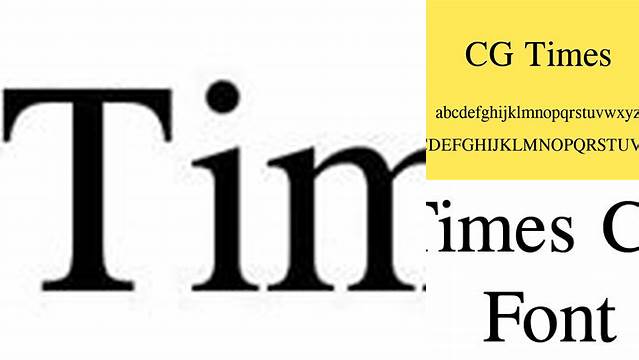
Unveiling the CG Times Font: A Typographical Gem
The world of typography is vast and ever-evolving, with countless fonts available to express ideas visually. Among these, the CG Times font stands out as a versatile and widely recognized typeface. Often associated with a classic, academic, or professional aesthetic, CG Times offers a clean, readable, and adaptable solution for a wide range of design projects. Whether you're crafting a report, designing a website, or laying out a presentation, understanding the nuances of this font and how to access it for free can be incredibly beneficial. This article delves deep into the CG Times font, exploring its origins, characteristics, and most importantly, providing a comprehensive guide on how you can download it for free, ensuring your design endeavors have the perfect typographic foundation. We’ll cover everything from where to find legitimate free downloads to tips on integrating it seamlessly into your workflow, guys. So, let's get started on unlocking the potential of this fantastic font!
Exploring the Distinctive Characteristics of CG Times Font
When you encounter the CG Times font, what immediately strikes you is its inherent sense of clarity and structure. This isn't just another font; it's a carefully crafted tool designed for maximum readability and a timeless appeal. Its serifs, those small decorative strokes at the ends of letterforms, are subtle yet distinct, guiding the eye smoothly across the text. This characteristic makes CG Times particularly well-suited for extended reading, be it in books, articles, or long-form web content. The x-height – the height of lowercase letters like 'x' – is generous, further enhancing legibility, especially at smaller sizes. Think about trying to read a tiny font on your phone screen; a good x-height makes a world of difference, and CG Times delivers on this front. Moreover, the letterforms themselves are well-balanced, with a pleasing contrast between thick and thin strokes, lending a sophisticated and professional air. It’s this attention to detail in its design that has cemented CG Times as a go-to choice for academic papers, business documents, and any project demanding a serious yet approachable tone. We’re talking about a font that doesn't just convey information; it enhances the reader's experience by providing a comfortable and visually pleasing encounter with the text. Its versatility is truly remarkable, guys, as it can transition seamlessly from formal reports to more creative, albeit still polished, digital designs.
Why CG Times Font is a Popular Choice for Designers
There are numerous reasons why the CG Times font has earned its stripes as a favorite among designers, students, and professionals alike. Its enduring popularity isn't accidental; it stems from a potent combination of aesthetic appeal, functional excellence, and widespread availability. For starters, its classic serif design evokes a sense of tradition and authority, making it an ideal candidate for formal documents, academic papers, and professional correspondence. When you need to convey credibility and trustworthiness, CG Times speaks volumes without shouting. Beyond its formal applications, guys, the font's clean lines and excellent readability also lend themselves to digital platforms. Websites, blogs, and user interfaces benefit from its clear presentation, ensuring that content is accessible and engaging across various devices and screen sizes. The subtle serifs help break up text, preventing eye fatigue during long reading sessions online, which is a massive plus in today's digital-first world. Furthermore, CG Times is known for its excellent kerning and spacing, the meticulous adjustment of space between individual letter pairs. This attention to detail ensures that words flow harmoniously, creating a polished and professional look that elevates any design. It’s this blend of classic elegance and modern functionality that makes CG Times such a reliable and versatile workhorse in the designer’s toolkit. It’s the kind of font that consistently performs, regardless of the context, making it a smart and efficient choice for a myriad of projects.
Utilizing CG Times Font in Your Design Projects: Tips and Tricks
Now that you have the CG Times font downloaded and installed, let's talk about how to make the most of it in your creative endeavors, guys. Its classic serif structure makes it incredibly versatile. For professional documents like resumes, reports, or business proposals, CG Times shines. Use it for body text to ensure maximum readability, and perhaps pair it with a clean sans-serif font for headings to create a nice contrast. For websites, its legibility at various sizes makes it a strong contender for body copy, especially on content-heavy sites. Consider using it in a slightly bolder weight for subheadings to maintain visual hierarchy. In presentations, CG Times offers a polished and authoritative feel for slides. Don't be afraid to experiment with font weights and styles – if available, italics can add emphasis, and bold can highlight key information. Remember that kerning (the spacing between specific letter pairs) is crucial for serif fonts. While CG Times is generally well-spaced, manually adjusting kerning for headings or critical text can further enhance its professional appearance. Experiment with different sizes; CG Times looks great from small print to larger display text, but always ensure consistency within your project. Guys, the key is understanding where its strengths lie: readability, classic appeal, and a professional demeanor. Whether it's for print or digital, CG Times is a reliable ally in crafting clear and impactful communication.
CG Times Font vs. Other Popular Serif Fonts: A Comparison
When you're deciding on the perfect font for your project, comparing options is always a smart move, and the CG Times font certainly holds its own against other popular serif contenders. Let's consider Times New Roman, its closest relative, which shares many of the same classic characteristics and is likely pre-installed on your system. CG Times often feels slightly more refined or perhaps a bit more 'modern' in its execution, though the differences can be subtle. Compared to Garamond, another beloved serif font, CG Times presents a more robust and less delicate structure. Garamond is known for its historical elegance and graceful curves, often favored for book design, while CG Times leans towards a more utilitarian and highly readable output. Think about Georgia, designed for screen readability; while Georgia is excellent for digital use, CG Times offers a more traditional serif feel that can bridge both print and digital environments effectively. The key differentiator often lies in the intended application. If you need a font that exudes academic gravitas or professional authority, CG Times is a superb choice. If you're aiming for the warmth and historical charm of old-style typefaces, Garamond might be more fitting. For crisp on-screen text, Georgia is hard to beat. However, CG Times provides a balanced blend of all these qualities – readability, classic styling, and professional polish – making it a reliable, go-to option for a multitude of design needs, guys. It’s a font that rarely disappoints.